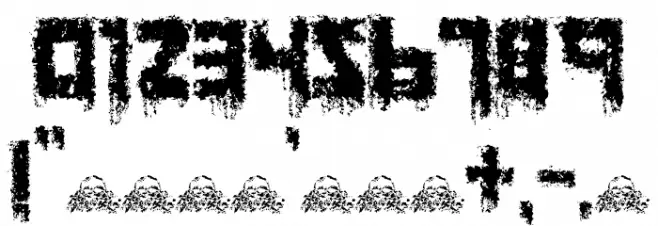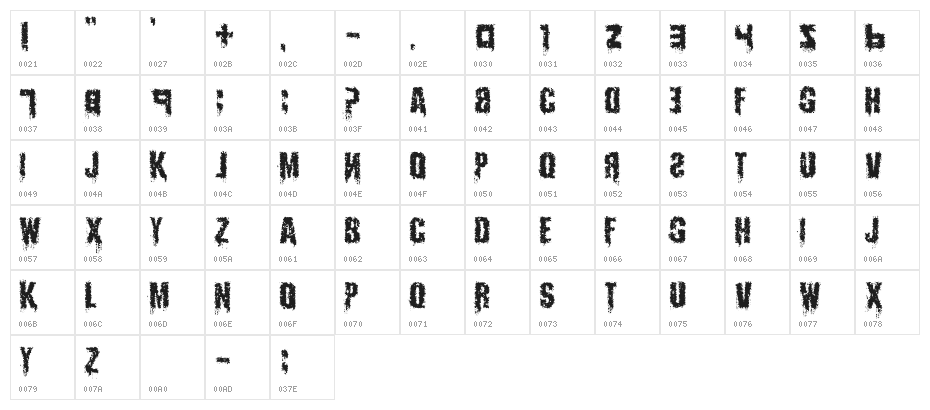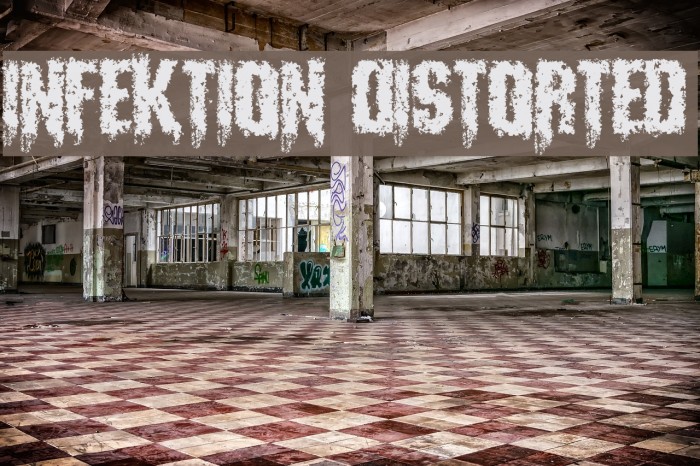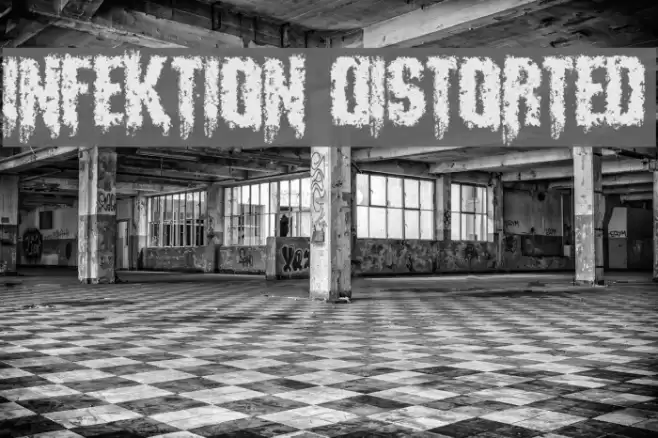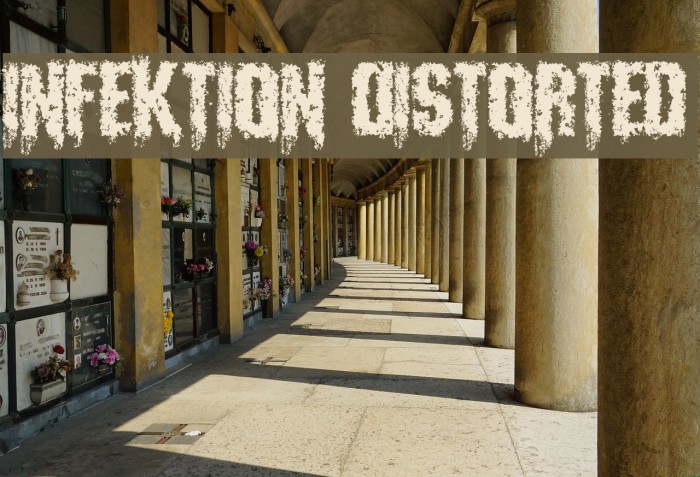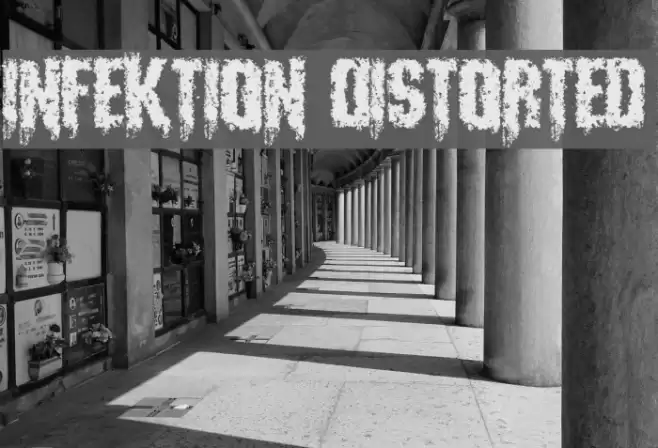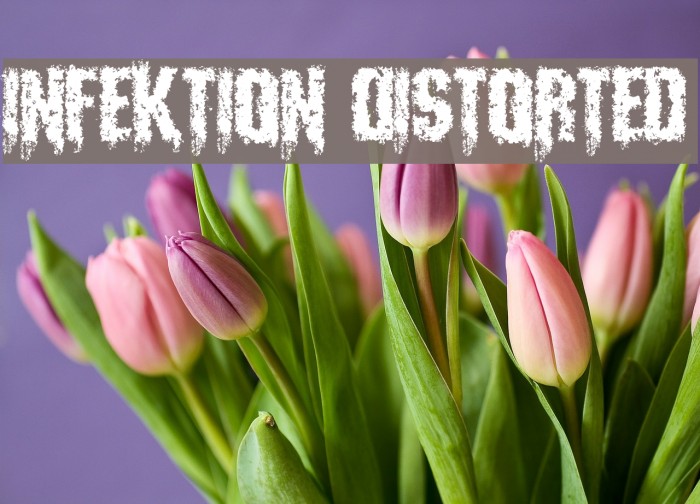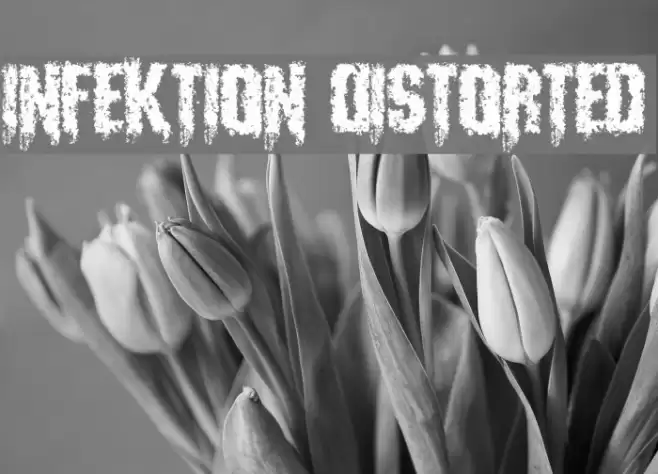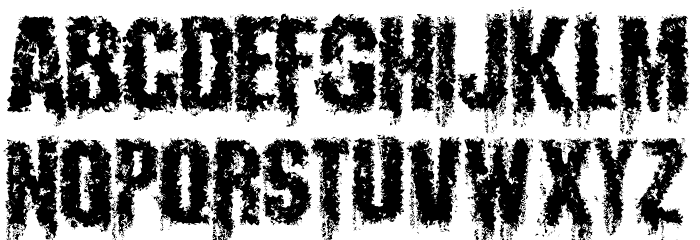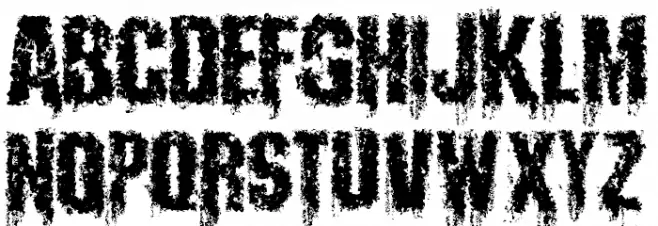
Infektion Distorted Font
Infektion Distorted Description
This font exhibits a highly distressed and grungy appearance, characterized by its rough, textured edges and irregular forms. The letters appear as if they have been eroded or corroded, giving them a chaotic and edgy look. This style is reminiscent of urban decay or a post-apocalyptic aesthetic, making it ideal for projects that require a sense of disarray or rebellion. The uppercase and lowercase letters maintain a consistent height, while the numbers and special characters follow the same distressed theme, ensuring a cohesive look across all elements.
| Overall Style | Grunge, Distressed, Edgy |
| Use Case | Logos, Posters, Album covers |
| Proposed Projects | Ideal for album covers, horror movie posters, streetwear branding, or any project needing a rebellious, gritty aesthetic. |